Circled É mark
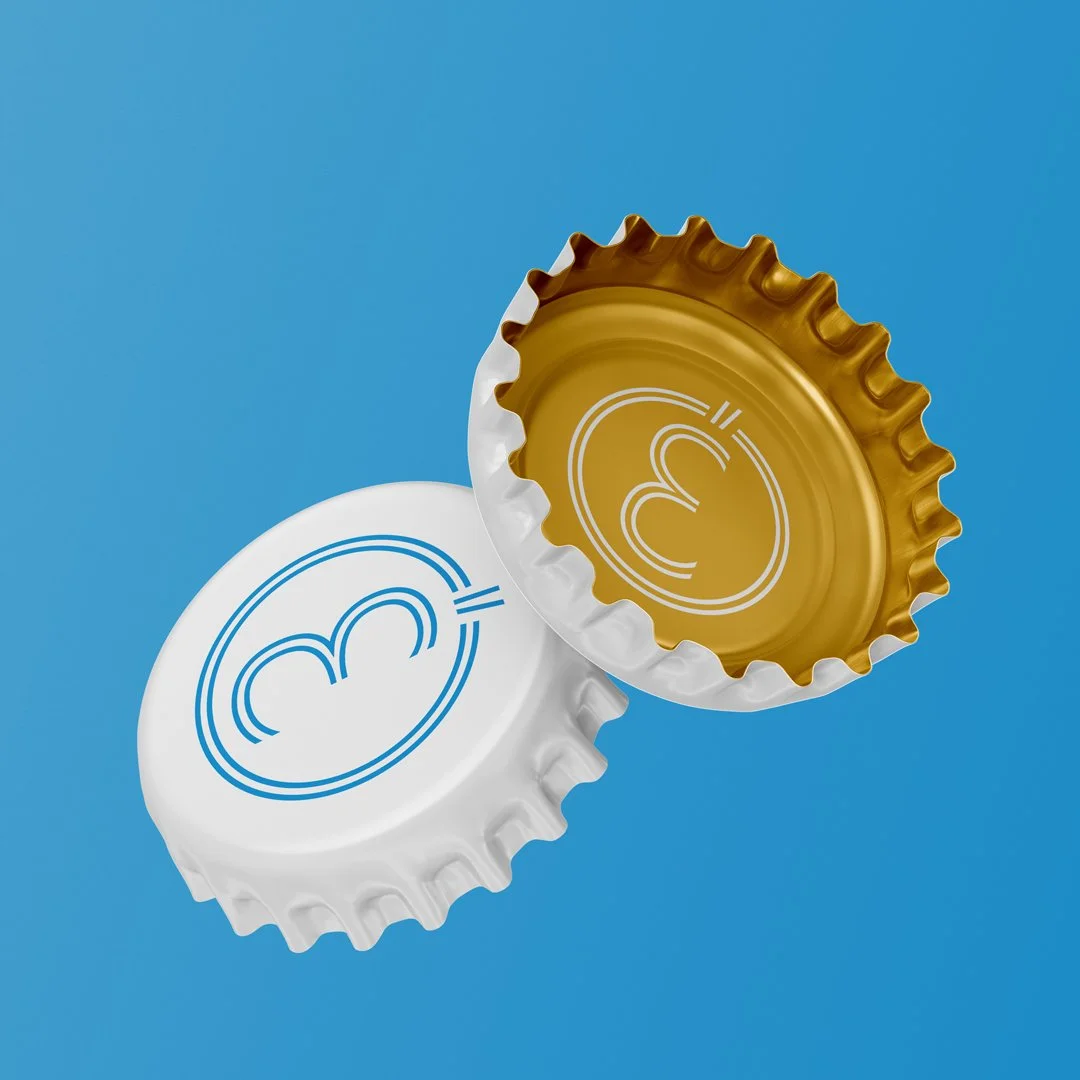
Circled É mark
A letter-based symbol consisting of the letter “É” and a circle around it. Inline monoline style. Could fit brands and products in all fields.